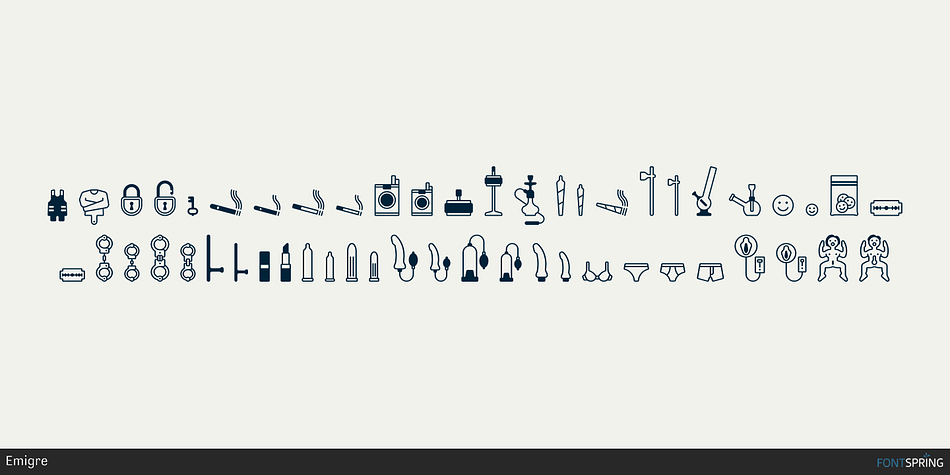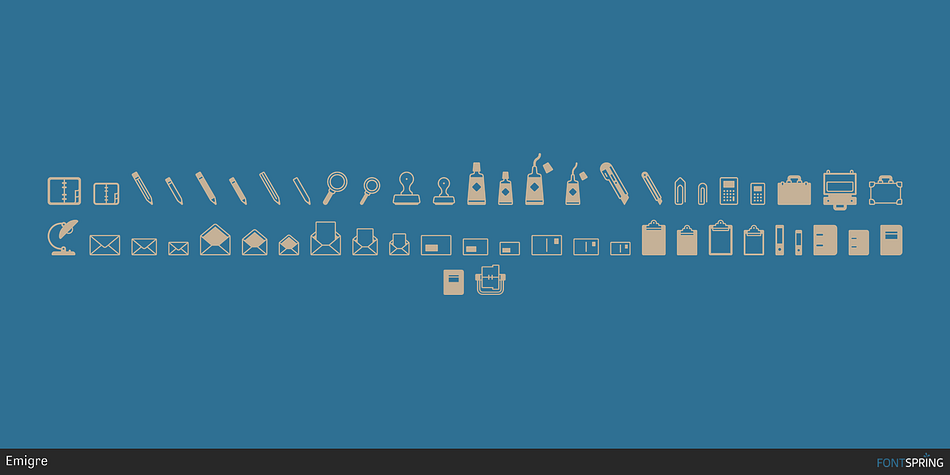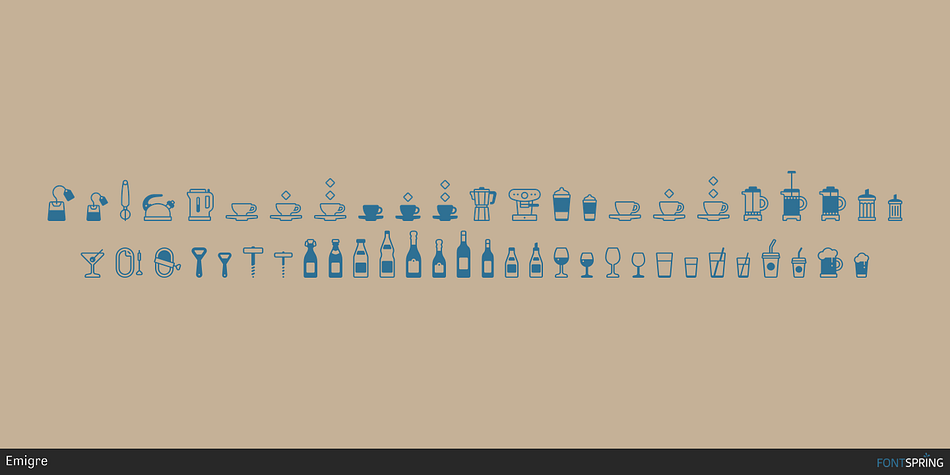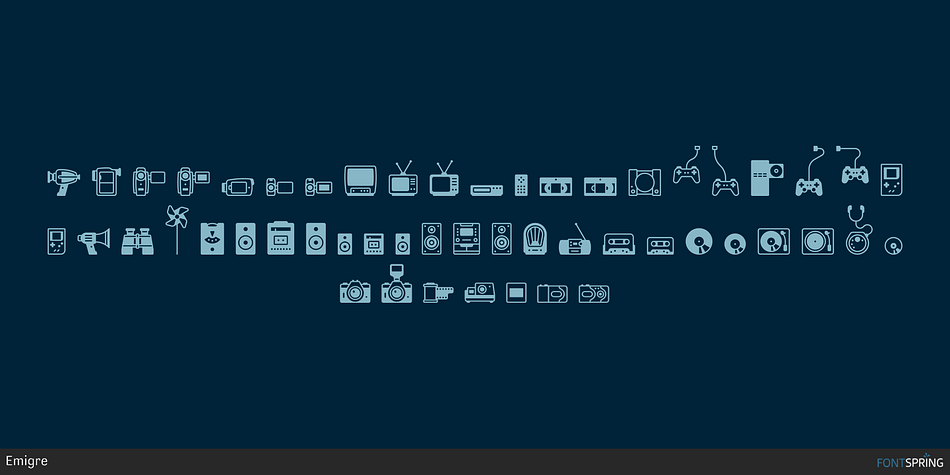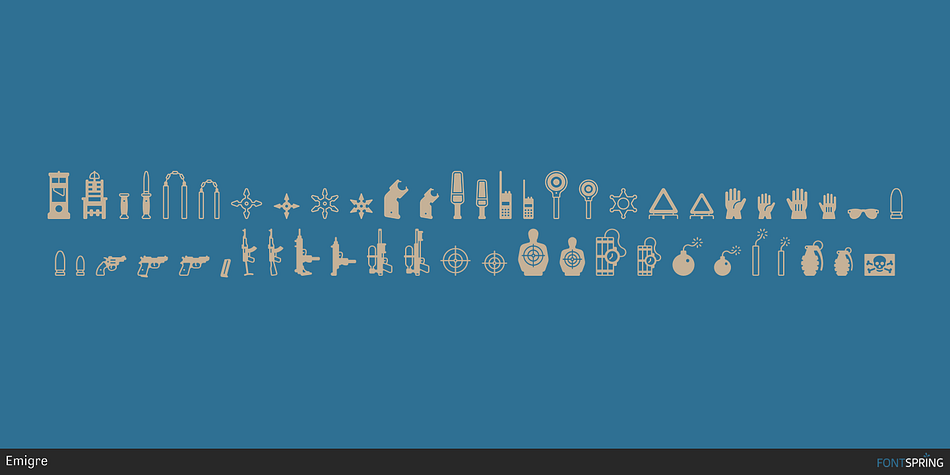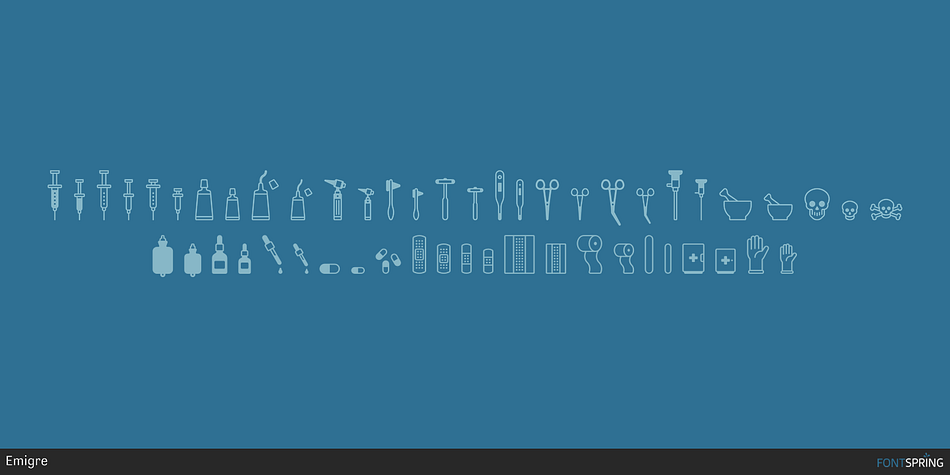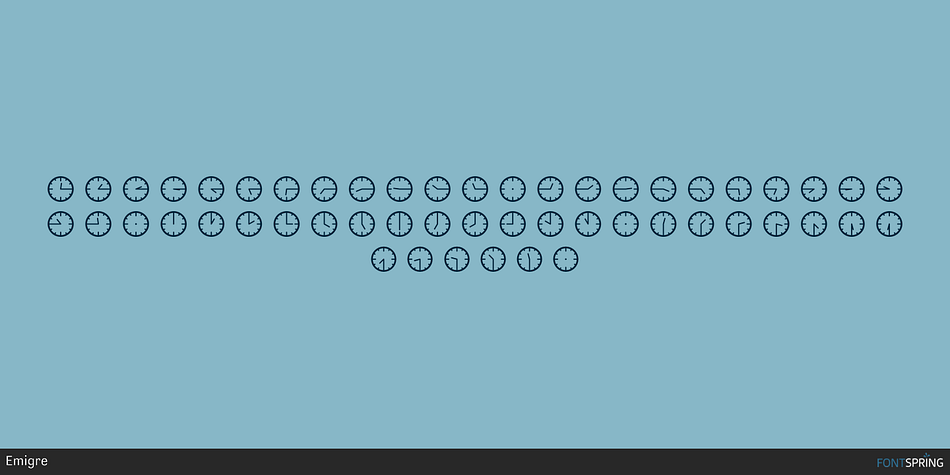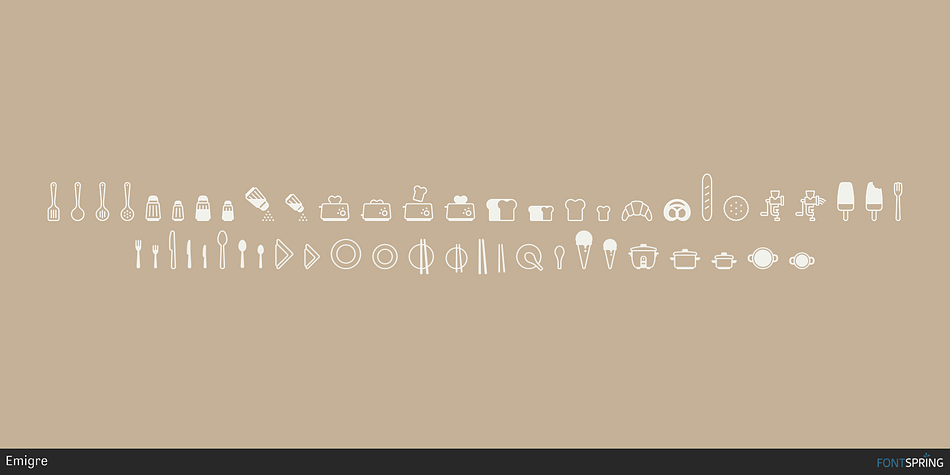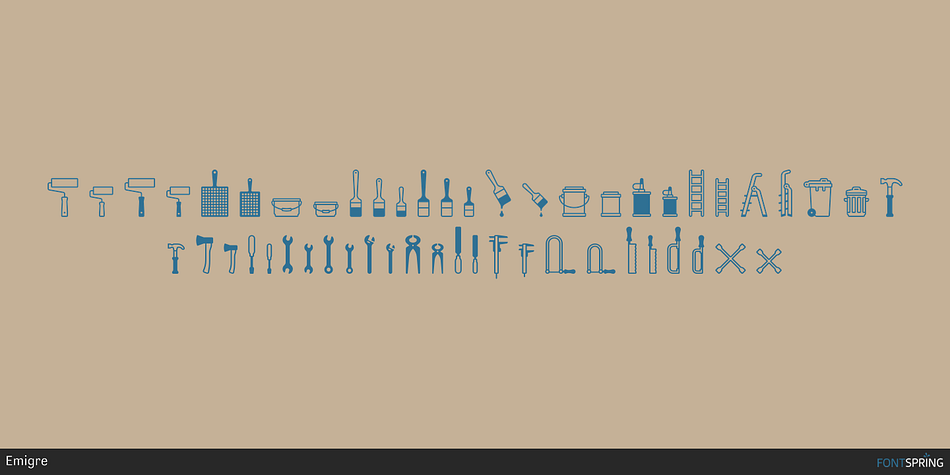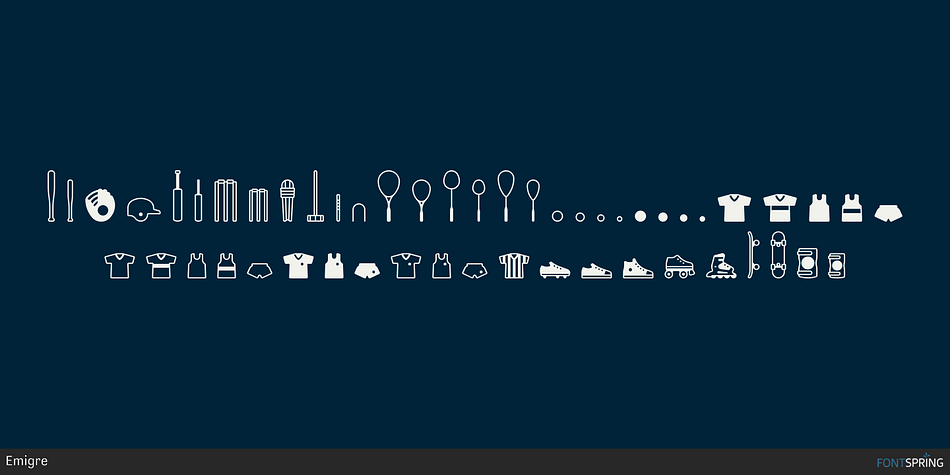
Designed by Martin Friedl, Poppi is a dingbat font family. This typeface has fifteen styles and was published by Emigre.
About Poppi
The first Poppi pictograms emerged from my final year project at the Stuttgart Academy of Arts. The self-imposed task was to design a comprehensive visual identity for a community center including logo, posters, leaflets and brochures, but also a signage system for inside the building. Specifically designed symbols formed an important part of the project because of my general enthusiasm for pictograms, but also in view of non-German-speaking visitors.
Before I started this project I had visited Egypt. It was in several respects an impressive trip. Early Egypt culture shows one of the most interesting and sophisticated symbolic languages, and it was an unforgettable experience to see those thousands of years old ideograms in their original setting. On the other hand, European visitors to present-day Egypt are not only confronted with a foreign language but also with letters that don’t “talk to them.” Even though signposts written in the English language and in Latin letters may be available in the centers of large cities or in important museums, you are on your own when traveling the back roads or when visiting a local Arabian market. When dealing with a language that uses Latin letters you can correctly copy the street name of your destination (even if you don’t understand what it says) and hand it to the taxi driver. When we tried to do the same in Egypt, our sketched Arabic letters may have implied some insult because the result was a heap of abuses (not understood, but presumably deserved) as the driver left us standing in the dust.
Today, everyone has the possibility of crossing linguistic borders, either with affordable flight tickets or through present-day communication technology. This gave me the idea to develop a comprehensive image-based language encompassing all areas of everyday life, allowing for communication beyond linguistic barriers. (Okay, it’s an ambitious project, but even the old Egyptians had to start with a few pictograms. Plus, that final year project at the Stuttgart Academy of Arts was never completed.)
How they were made
In the beginning, whenever I saw an object that I thought would make an interesting icon, I produced a little pencil sketch on paper, scanned it, and re-constructed it in Freehand. I then exported the file into Fontographer and worked to perfect the details. But after hundreds of icons, and countless hours of work, the process changed, and most importantly, I finally learned how to manage the duality of my home and workplace.
Friends and loved ones tend to believe that as long as no cursor is blinking on the computer screen in my living room, my mind is with them and not with my work. I am happy to leave them to their belief. Little do they know that I now perceive my surroundings as a system of symbols. No detour of sketching, scanning, and reconstruction is needed anymore. An icon may be produced in the living room with my computer turned off. I may have a relaxed weekend with my loved ones and, on Monday, the only task left is to digitize the final version I designed in my mind. Creating these icons has become second nature to me.
The decision of which icons to include was initially a pragmatic one. To start with, there were the existing icons from my unfinished final year project. Then, it seemed sensible to match common informational pictogram sets with necessities, such as letter, phone or fax. However, I wanted to go beyond the obvious, to other areas of everyday life. I wanted to explore the potential of an image-based language and ask: “might it be possible to buy a Metro ticked in Cairo without requiring assistance, or to write instructions for the use of a cellular phone, without a single written word?” Poppi is the first step towards providing the answer.
—Martin Friedl